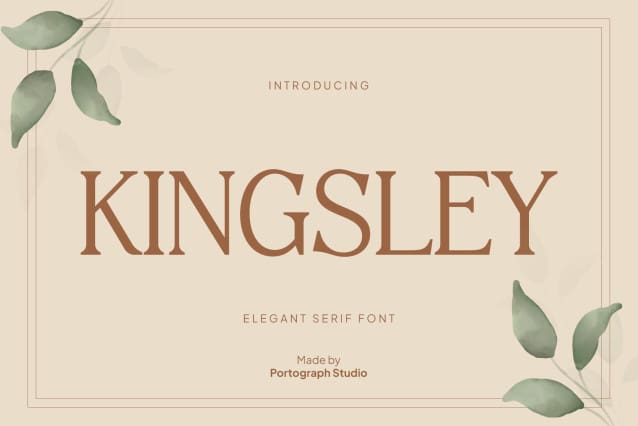
Kingsley Font
Kingsley Font, this typeface has a unique and attractive appearance. Kingsley looks great when combined with solid character fonts.
For branding projects, logos, wedding designs, social media posts, advertisements, product packaging, product designs, labels, photography, watermarks, invitations, stationery, and anything requiring handwritten taste, Kingsley is perfect.